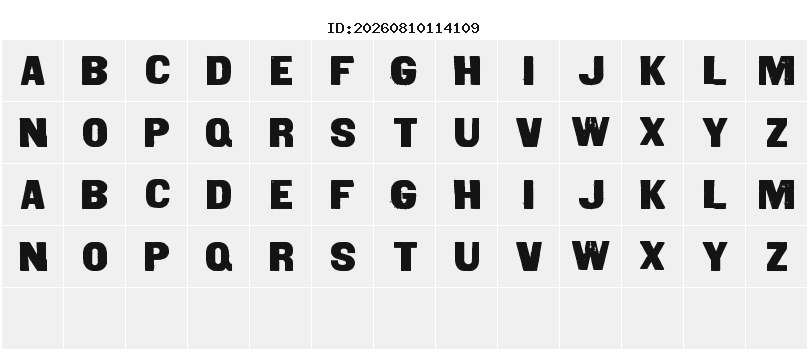
About qxi.ttf
qxi.ttf is a modern, elegant sans-serif font designed for ultimate readability and visual harmony. Perfect for branding, headlines, web design, and print materials.